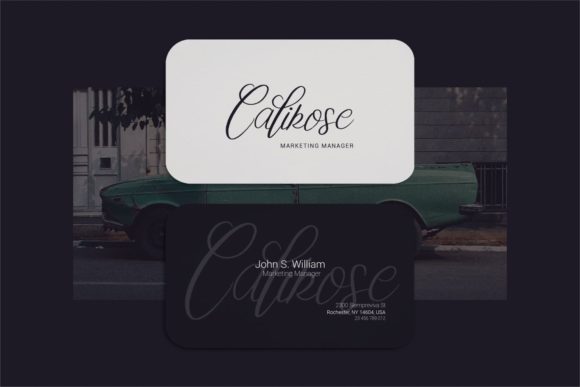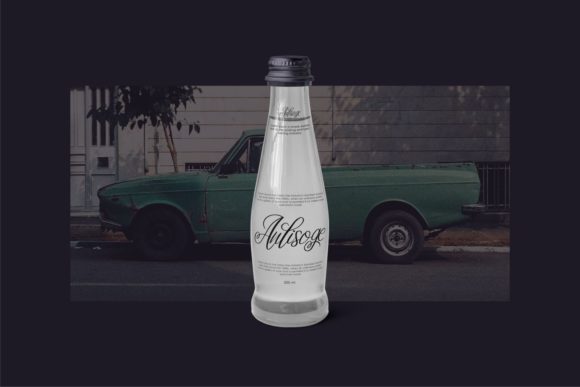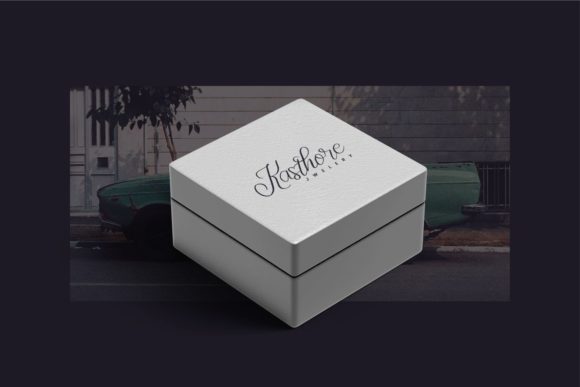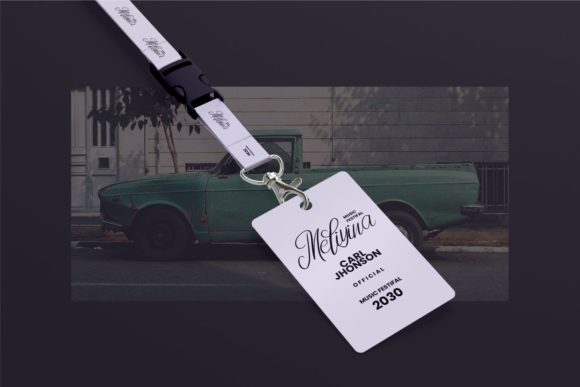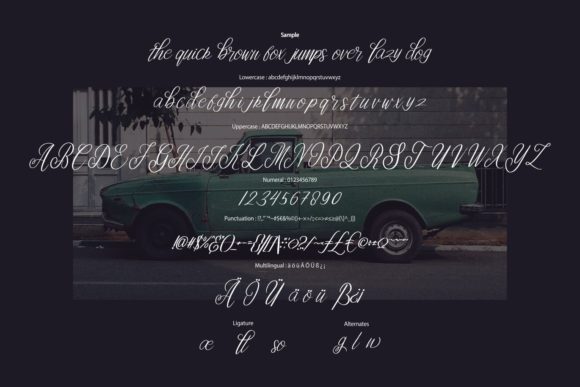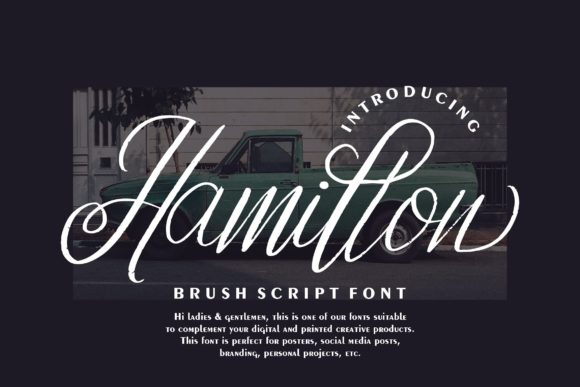
Discover the Elegance of Hamillon Font: Elevate Your Designs with a Beautiful Handwritten Style
In the vast universe of typography, fonts play a pivotal role in bringing creativity and personality to design projects. Whether you’re working on a formal document, a branding campaign, or a personalized gift, the right font can make all the difference. This is where the Hamillon Font comes into play—a beautiful and chic handwritten font designed to add a touch of elegance and sophistication to your designs.
The Charm of Hamillon Font
Hamillon Font is not just any ordinary font; it’s a stylish and versatile typeface that can effortlessly adapt to a wide range of design ideas. Its handwritten nature gives it a warm, personal feel that can make your projects stand out. Whether you’re aiming for a formal look or something more personalized and quirky, Hamillon Font fits the bill perfectly.
One of the key advantages of using Hamillon Font is its incredible versatility. This font can be employed in various design contexts, from:
- Formal Documents: Add a touch of elegance to your business proposals, reports, and official letters.
- Branding and Marketing: Create memorable brand identities, logos, and marketing materials that speak to your audience.
- Personal Projects: Whether it’s a handmade craft, a DIY project, or a personal blog, Hamillon Font can add that extra charm.
- Digital Content: Enhance your website, social media posts, and digital newsletters with a stylish and readable font.
Why Choose Hamillon Font?
With so many fonts available, why should you choose Hamillon Font for your projects? Here are a few compelling reasons:
- Unique and Eye-Catching: In a sea of commonly used fonts, Hamillon Font offers a fresh and distinctive look that can capture attention.
- Easy to Read: Despite its elegant and handwritten style, Hamillon Font maintains a high level of readability, making it suitable for both headings and body text.
- Customizable: As a digital font, Hamillon can be easily resized, colored, and manipulated to fit your design requirements.
- Support for Various Languages: Depending on its design, Hamillon Font may offer support for multiple languages, making it a great choice for global brands and projects.
How to Use Hamillon Font Effectively
To make the most out of Hamillon Font, consider the following tips:
- Pair it Wisely: Combine Hamillon Font with complementary fonts to create visual interest and hierarchy in your designs.
- Play with Sizes: Use varying font sizes to emphasize headings, subheadings, and body text.
- Experiment with Colors: While keeping it readable, experiment with different colors to match your brand’s palette or project theme.
- Maintain Consistency: For multi-page documents or extensive projects, ensure consistent use of Hamillon Font to maintain a cohesive look.
Hamillon Font is more than just a beautiful and chic handwritten font; it’s a versatile tool that can elevate your designs to new heights. Its elegance, readability, and adaptability make it an excellent choice for designers and crafters looking to add a personal touch to their projects. By incorporating Hamillon Font into your design arsenal, you can confidently create stunning visuals that amaze and engage your audience. So, why wait? Explore the possibilities of Hamillon Font today and discover a world of creative potential at your fingertips.
Whether you’re a seasoned designer or a crafting enthusiast, Hamillon Font is sure to become a favorite in your collection. Its ability to blend formality with a personal touch makes it an invaluable asset for any project. So, go ahead and employ Hamillon Font in your next design confidently, and watch as your creative visions come to life in a stylish and impactful way.